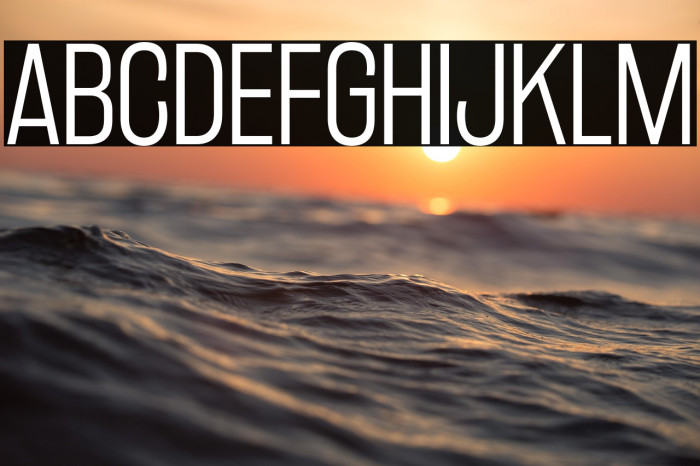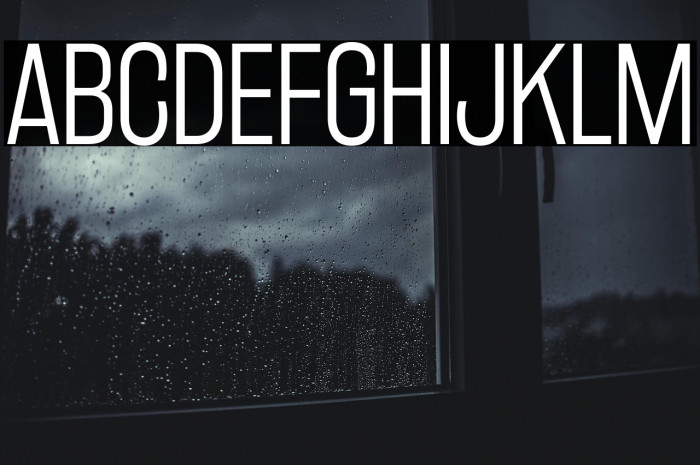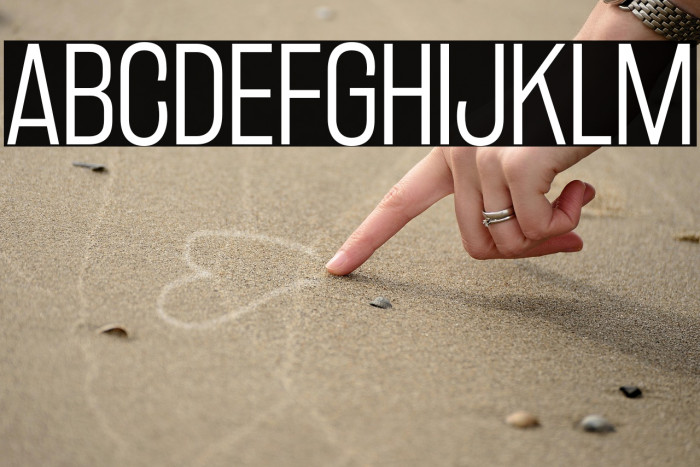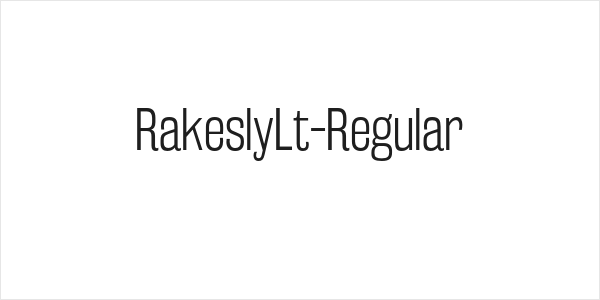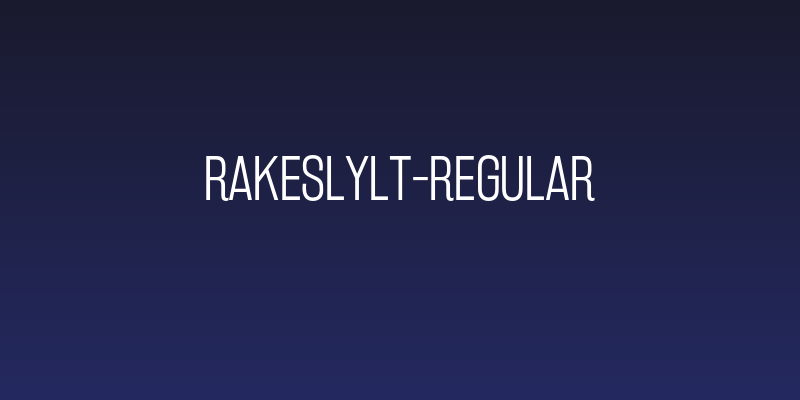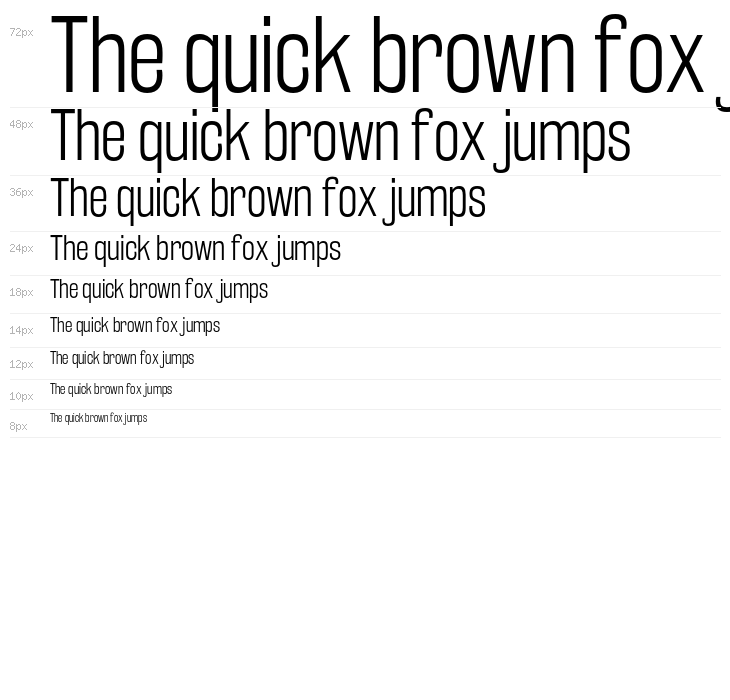
RakeslyLt-Regular Font
RakeslyLt-Regular Description
This font features a clean and modern sans-serif style with a geometric structure. The characters are tall and narrow, giving it a sleek and elegant appearance. The uppercase letters are uniform in height, while the lowercase letters maintain a consistent baseline with slight variations in ascenders and descenders. The numerals are proportional, matching the overall height of the uppercase letters. Special characters are well-integrated, maintaining the font's cohesive look. The thin strokes and minimal contrast contribute to its contemporary feel, making it suitable for a variety of design applications.
Proposed ProjectsIdeal for branding, editorial design, web design, and corporate materials.